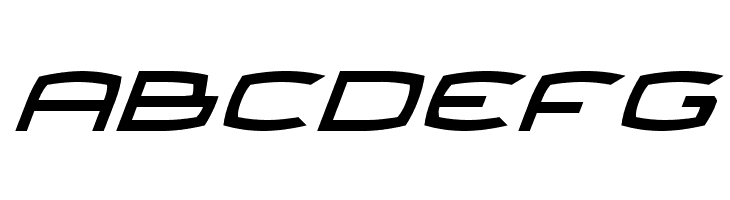
Predataur Expanded Italic Font
- Font: Predataur Expanded Italic
- Weight: Expanded Italic
A modern, geometric font with bold, angular letterforms and a retro-futuristic vibe.